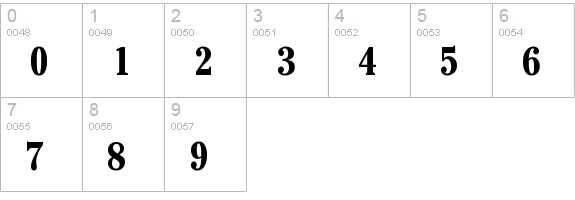
CheltenhamCnd-Bold Font Details
CheltenhamCnd-Bold is a strong, high-contrast variant in the CheltenhamCnd typeface family \xE2\x80\x94 well suited to headlines, attention-grabbing titles, and strong calls-to-action.
CheltenhamCnd-Bold is a bold and striking font that exudes elegance and sophistication. Its strong and commanding presence makes it perfect for headlines, titles, and other attention-grabbing text. The sharp serifs and clean lines of CheltenhamCnd-Bold give it a classic yet modern look that is sure to make a statement. This versatile font is free for personal and commercial use, making it a valuable addition to any designer's toolkit. Whether you're working on a branding project, a poster design, or a web layout, CheltenhamCnd-Bold will help you achieve a professional and polished finish. You can freely download CheltenhamCnd-Bold at FontsMarket.com, where you'll find a wide selection of high-quality fonts for all your design needs. Don't miss out on this stylish and impactful font - download CheltenhamCnd-Bold today and take your designs to the next level!